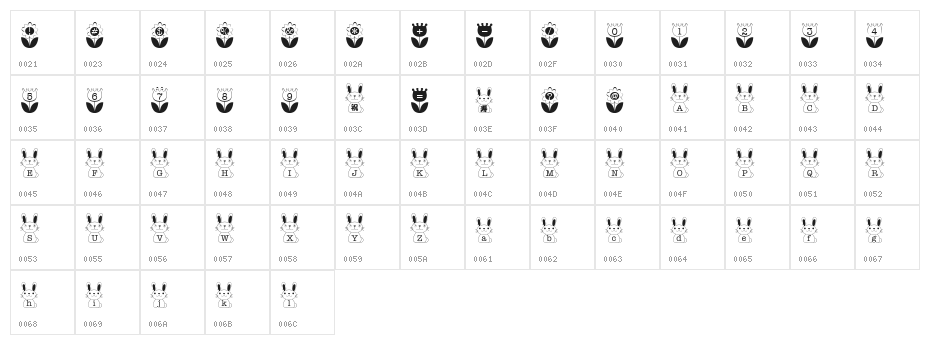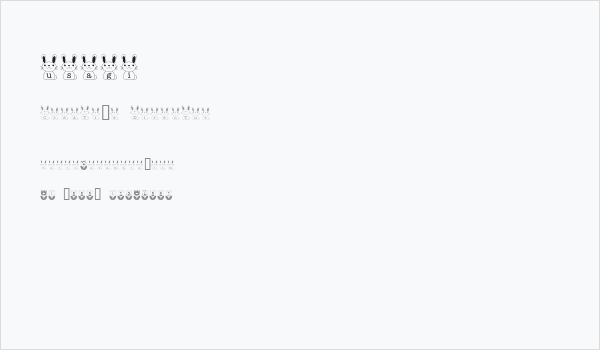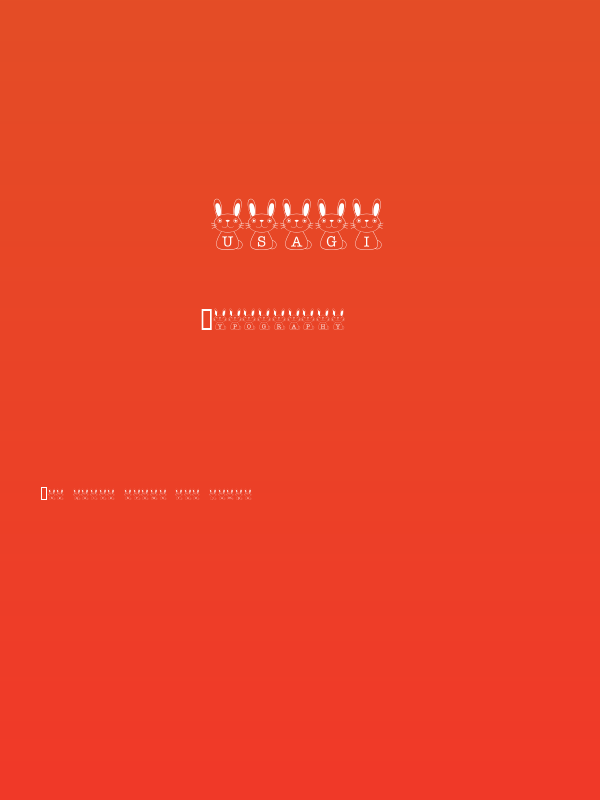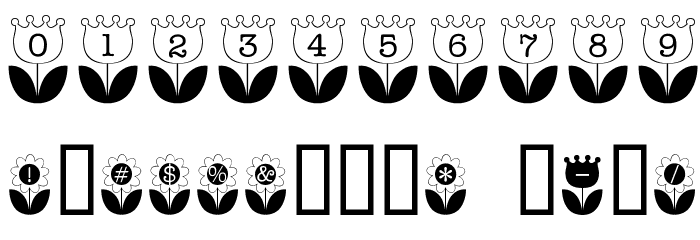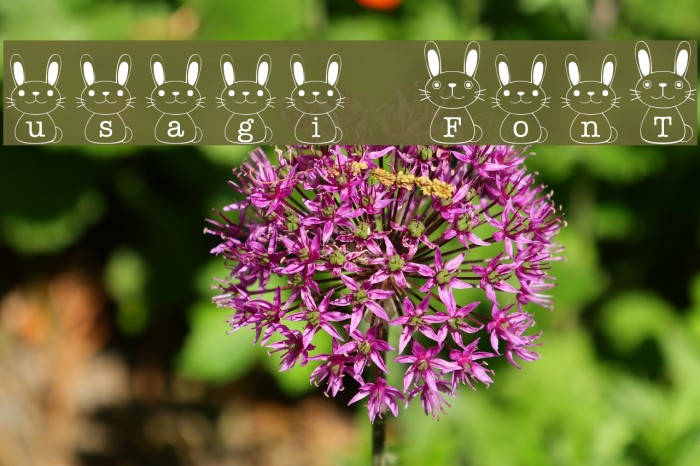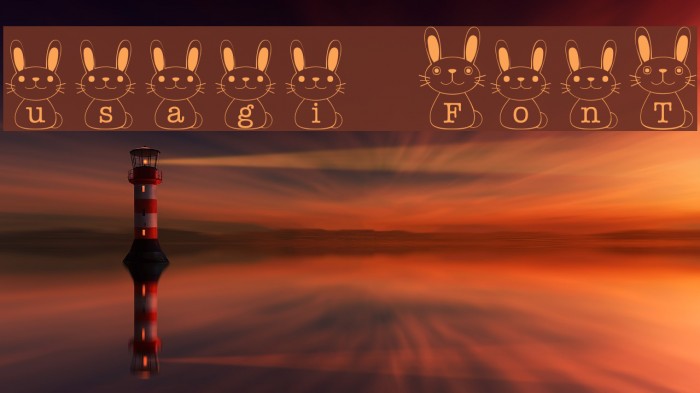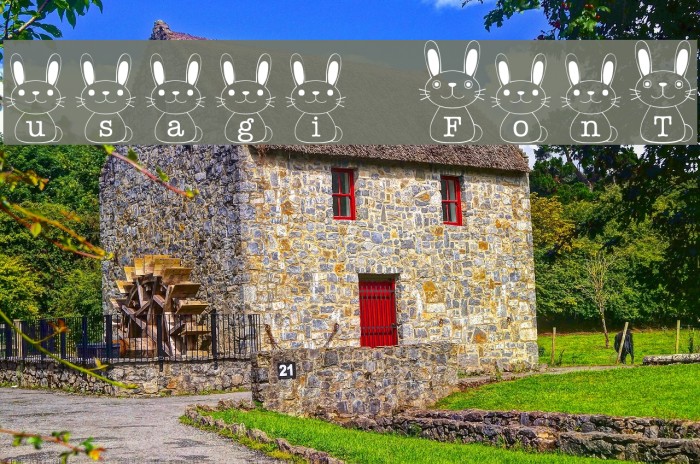
usagi Font
usagi Description
This playful and whimsical font features each character encased within a cute bunny illustration, adding a charming and unique touch to any design. The uppercase and lowercase letters are clearly distinguishable, with a consistent style that maintains readability despite the decorative elements. The numbers are creatively integrated into flower designs, further enhancing the font's playful nature. Special characters are also included, each with its own distinct decorative element, making this font ideal for projects that require a fun and engaging aesthetic.
| Overall Style | Playful, Whimsical |
| Use Case | Headlines, Decorative text, Children's materials |
| Proposed Projects | Ideal for children's books, playful greeting cards, educational materials, and whimsical branding projects. |